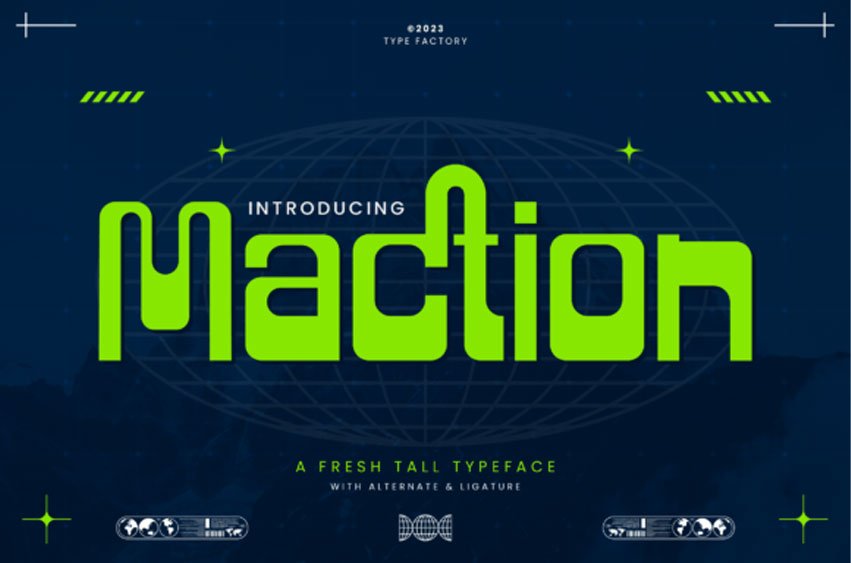
Maction Font
Maction Fon is a futuristic display typeface featuring geometric letterforms and rounded techno-inspired shapes. The characters are designed with a modern digital aesthetic that reflects technology, innovation, and sci-fi visual culture.
This typeface works well for gaming titles, technology branding, posters, digital graphics, and futuristic design projects.